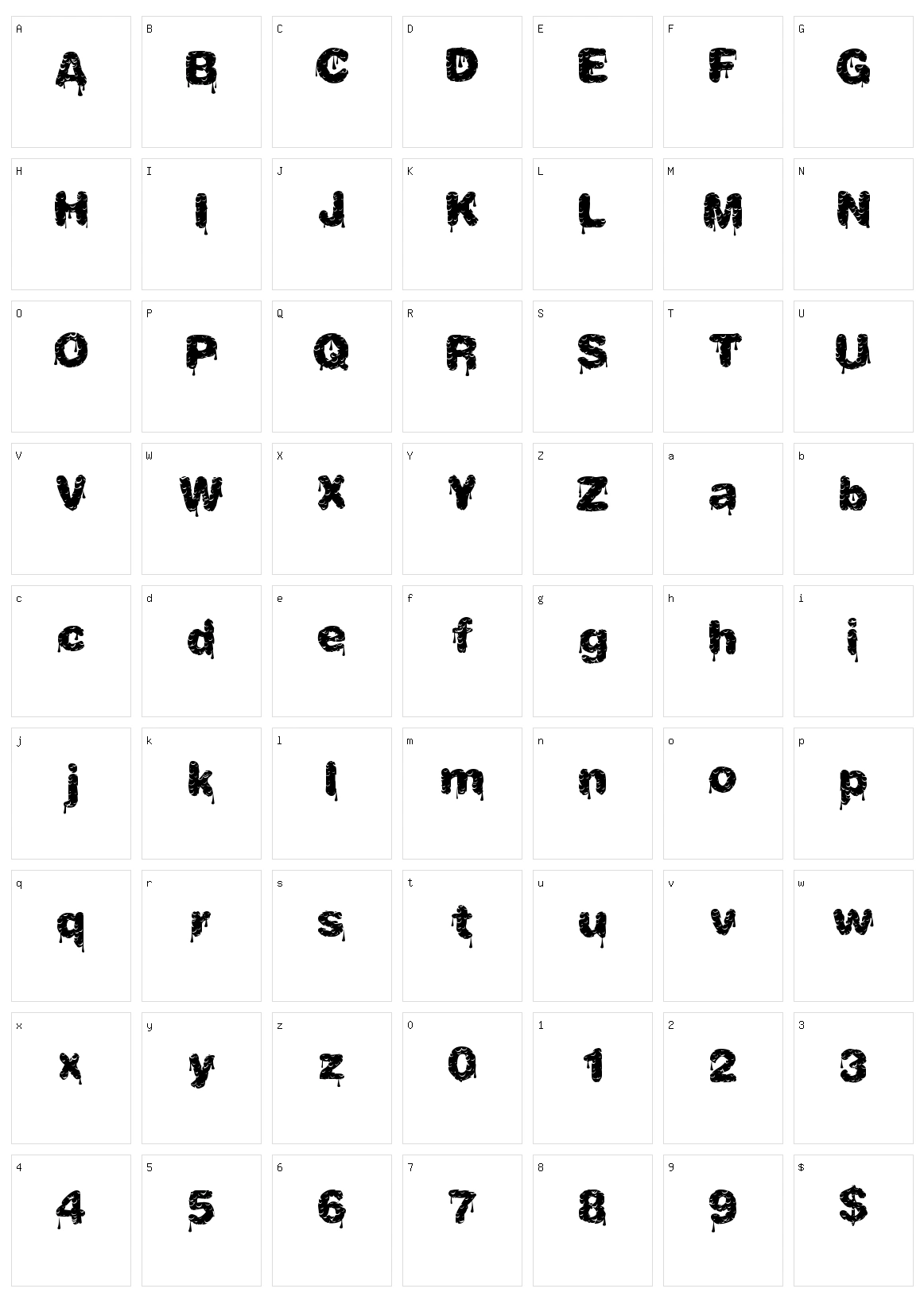
The free font Tasty Drips is carefully designed by Xerographer Fonts, showcasing a thoughtful balance of creativity and usability and falls under the Horror font style. When you download the ZIP file, it contains only 46.65 KB of font files, making it lightweight and quick to download. Please review the license details below to understand permitted usage and distribution rights. If license information is not available, we recommend using this font for personal projects only or contacting the author directly for commercial usage permissions.